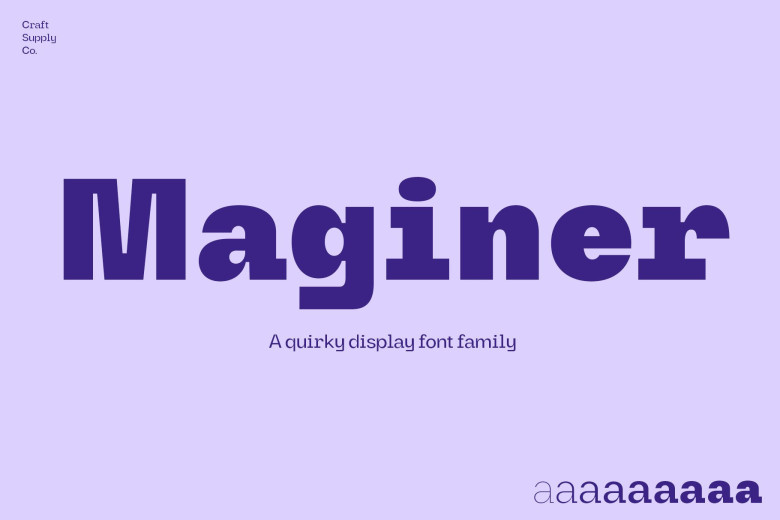
Maginer Font
Maginer Display Font . is quirky yet formal display and text type for your strong impression design. display or text type this typeface is suitable for you poke this typeface, and anytime to read in big and small text purpose.
This typeface is suitable to create almost all types of design projects such as print materials. just use it your imagination, and your project will become more alive and look greater that ever with this typeface.
Maginer Display Font